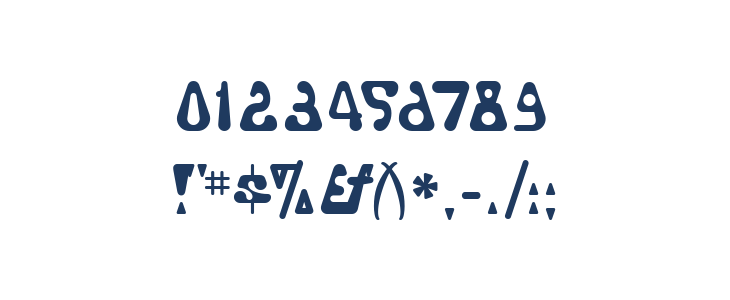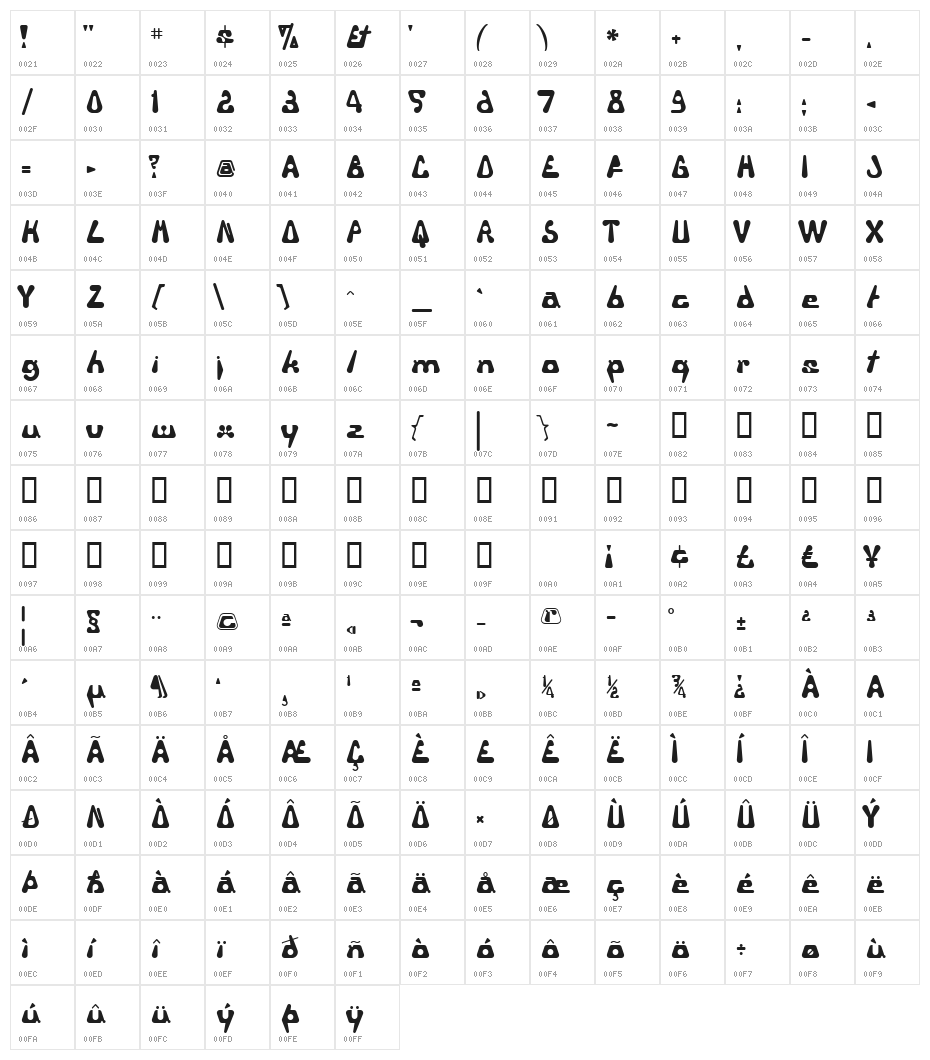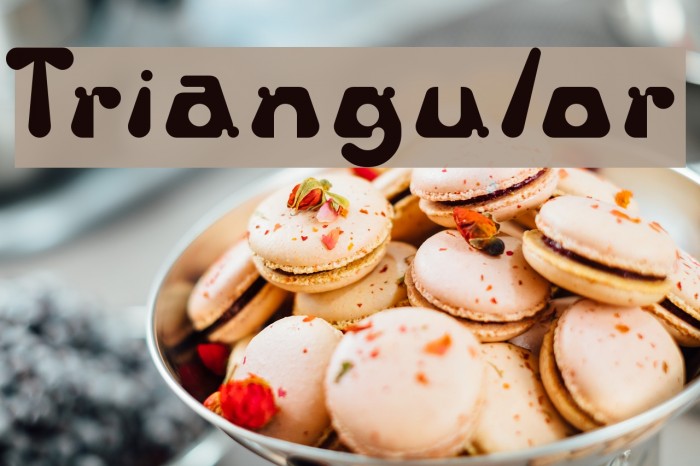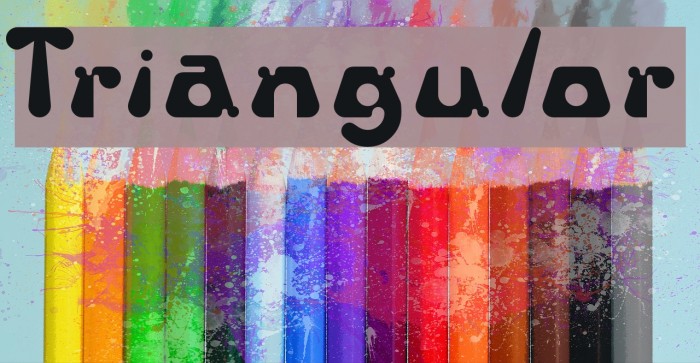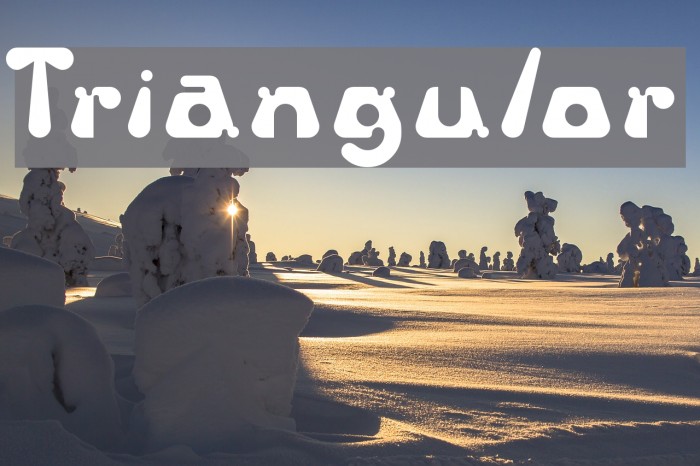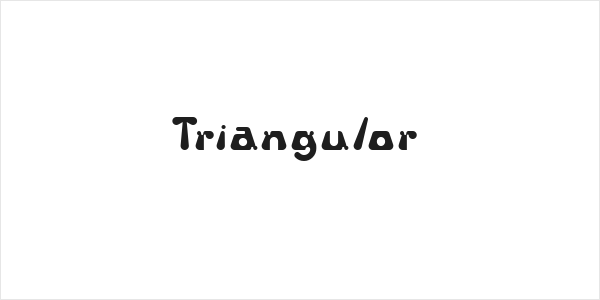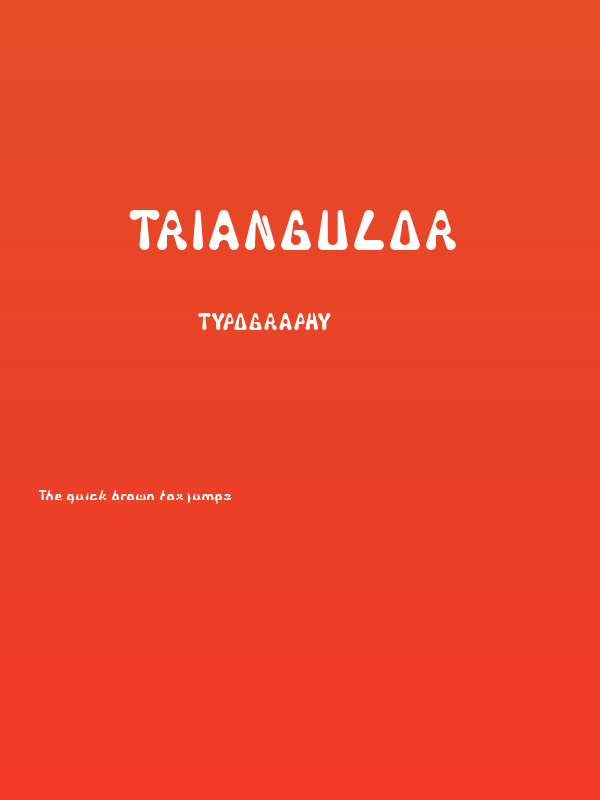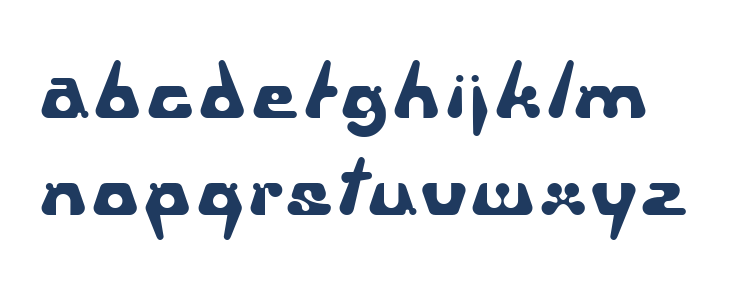
Triangulor Font
Triangulor Description
This font features a unique and playful design with a geometric influence, characterized by its bold and rounded letterforms. Each character incorporates triangular elements, giving it a distinct and modern appearance. The uppercase and lowercase letters maintain a consistent style, with smooth curves and a slightly condensed form. The numerals and special characters follow the same design principles, ensuring uniformity across all glyphs. This font's boldness and distinctive shapes make it stand out, ideal for creative and eye-catching designs.
| Proposed Projects | Ideal for branding, posters, and creative projects that require a modern and playful touch. |